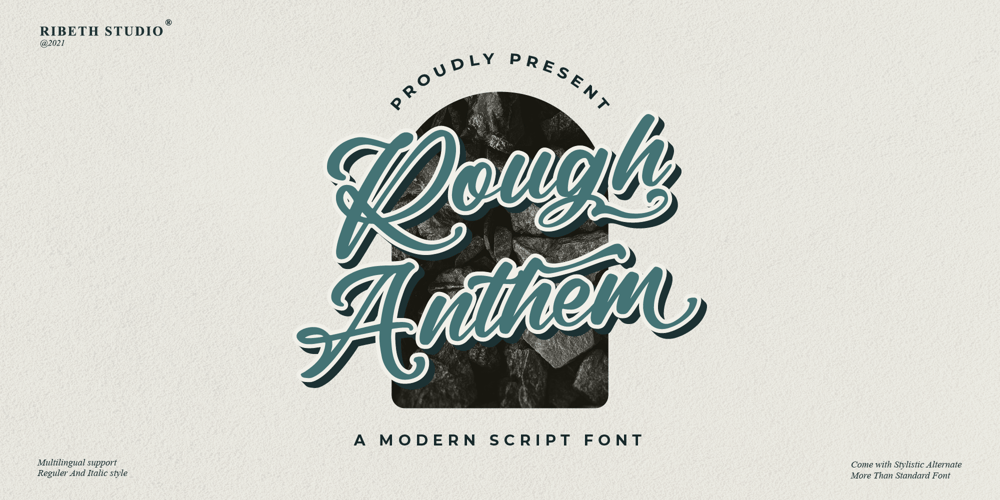
Rough Anthem Font Family was designed by Davis Andi Pradana and published by Ribeth Studio. Rough Anthem contains 2 styles and family package options. Rough Anthem is a stylish modern script font with 2 styles: Regular, Italic and includes a full set of uppercase and lowercase letters, multilingual symbols, numerals, punctuation, alternates, swash, and ligatures. The font is perfect for branding, wedding invites, and cards, Christmas card, branding, logos, product packaging, invitation, quotes, t-shirt, label posterthis is perfect for branding, logos, invitation, and more.Rough Anthem Features :- Multilanguage- Ligatures – Alternates – Swash- PUA EncodedPlease comment us if you have any questionThanks and have a good day